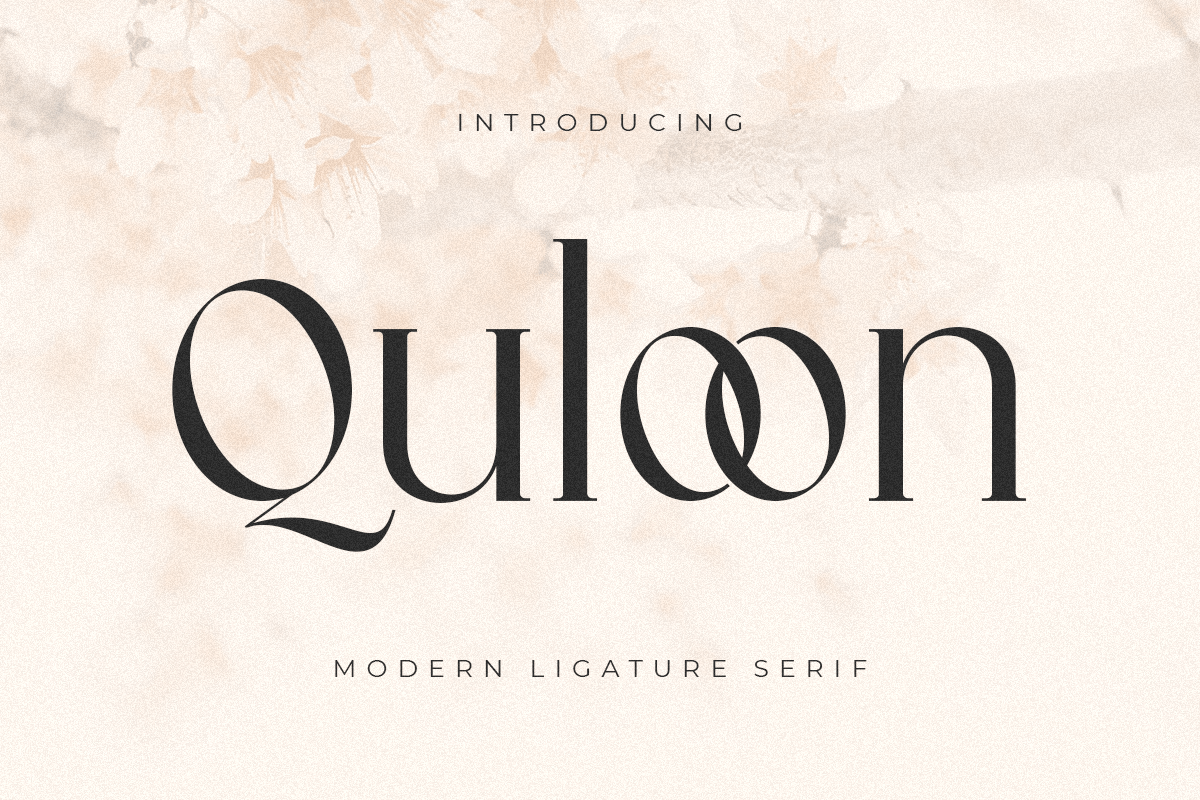
Quloon
-Modern Ligature Font
Quloon
New Ligature font that we created special for modern projects with extra ligature and alternates in unique shape will be ready to add value of your brand. It so nice to leverage designer or product owner that need solutions to make their design look more elegant and luxury. And specially for Quloon font, We prepared any ligatures and any alternate characters to help you create unlimited variations for your creative needs.
• Ligature